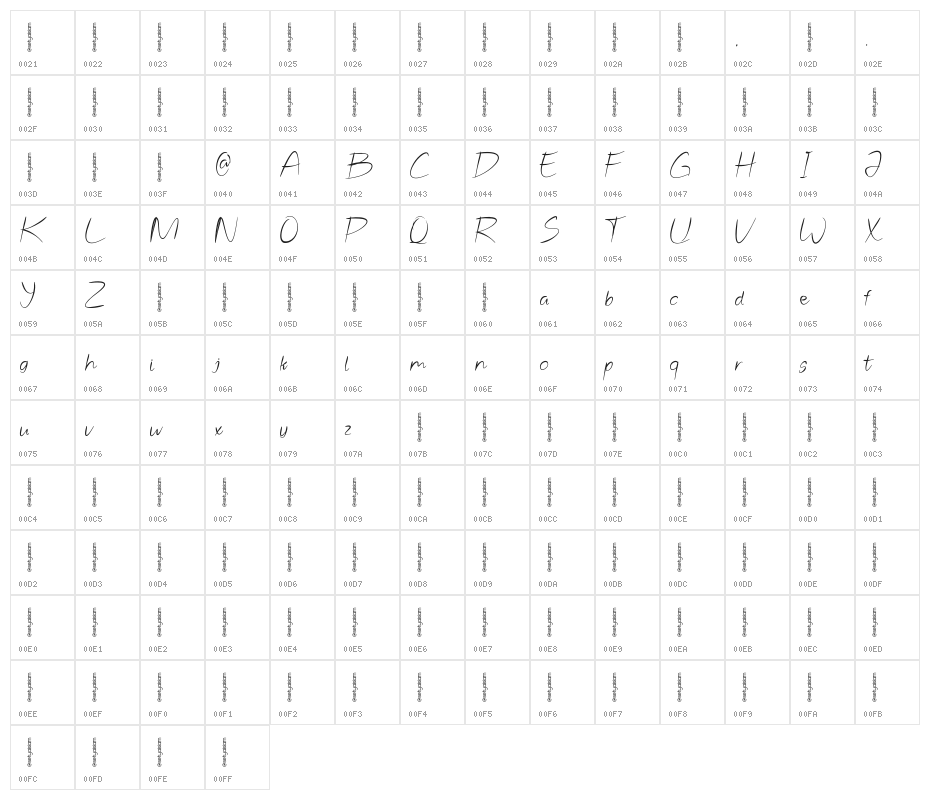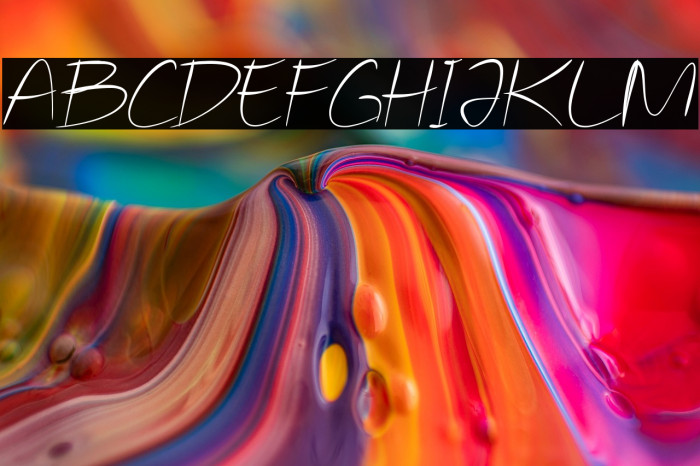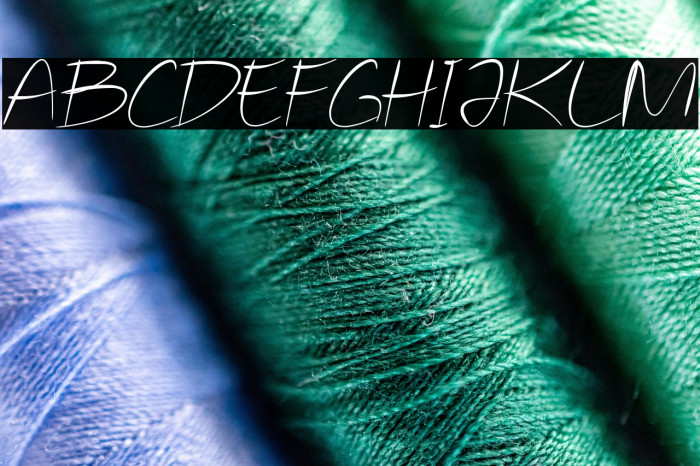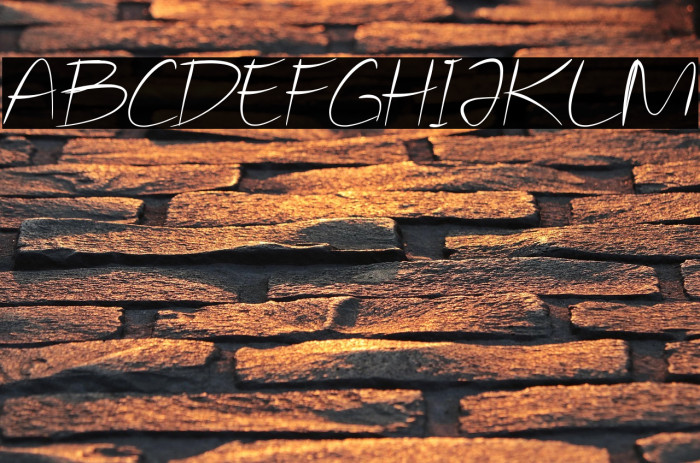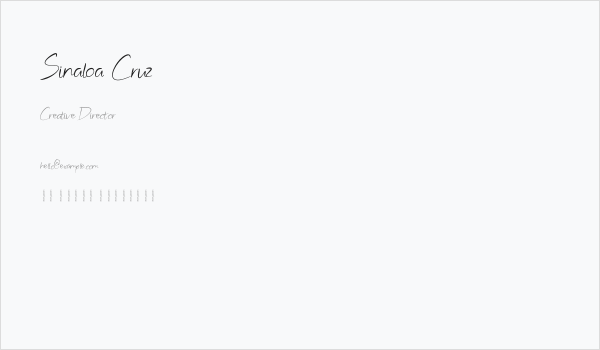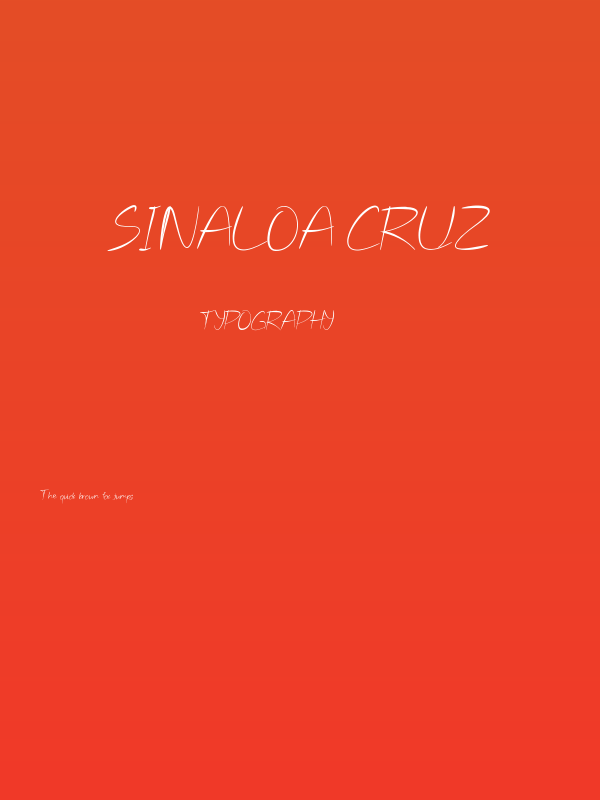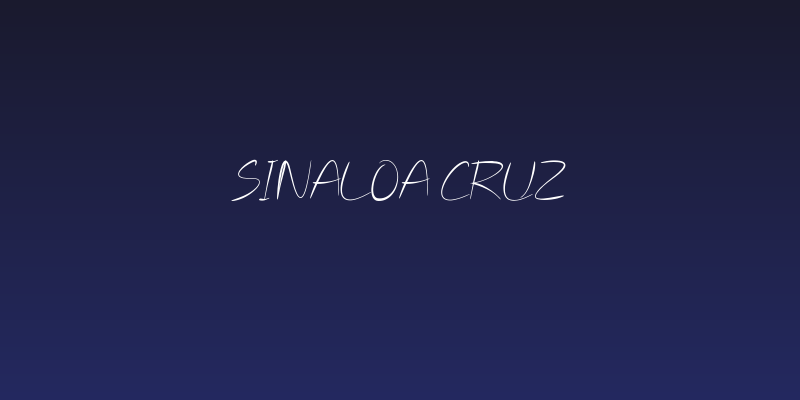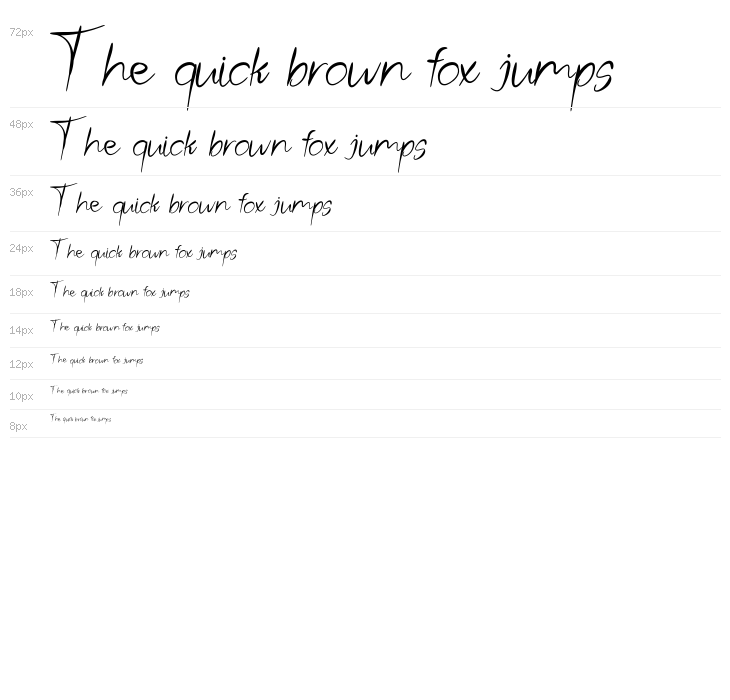
Sinaloa Cruz Font
Sinaloa Cruz Description
This font features a unique handwritten style with a modern twist. The uppercase letters are tall and slightly slanted, giving a dynamic and energetic feel. The lowercase letters maintain a consistent flow, enhancing readability while preserving the artistic flair. The strokes are thin and elegant, with a slight variation in thickness that adds character without compromising clarity. The numbers and special characters are designed to match the overall aesthetic, ensuring a cohesive look across different uses. This font is versatile, suitable for both digital and print media, and can add a personal touch to any project.
Proposed ProjectsIdeal for personal branding, invitations, greeting cards, and creative projects that require a personal touch.